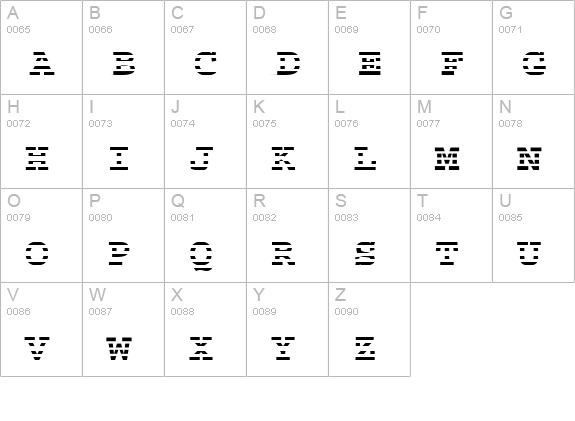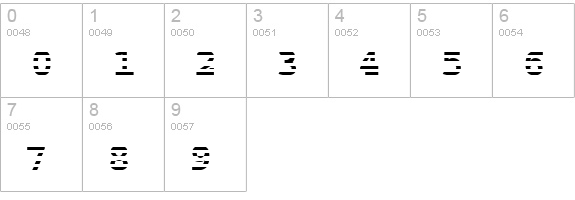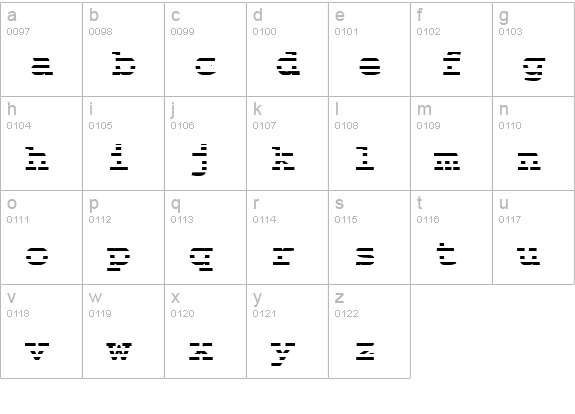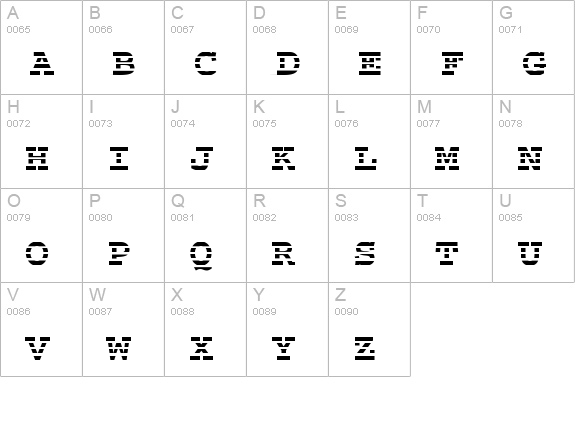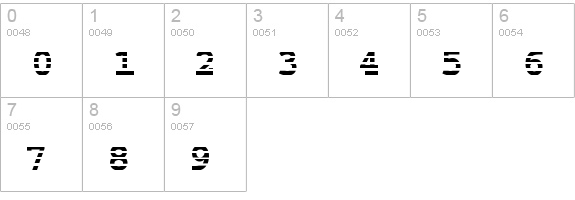
ChiselStriped Normal Font Details
ChiselStriped Normal is the standard, neutral variant in the ChiselStriped typeface family \xE2\x80\x94 well suited to general body text, paragraphs, and standard typographic work.
ChiselStriped Normal font is a modern and stylish typeface that adds a touch of sophistication to any design. Its sharp edges and clean lines give it a unique and eye-catching look that is perfect for logos, headlines, and other creative projects. This font strikes the perfect balance between elegance and readability, making it versatile for a wide range of design applications. Best of all, ChiselStriped Normal font is completely free to download at FontsMarket.com. This means you can add this stunning font to your collection without any cost, making it a valuable resource for your design projects. Don't miss out on the opportunity to enhance your designs with the elegant and striking ChiselStriped Normal font – download it for free today!